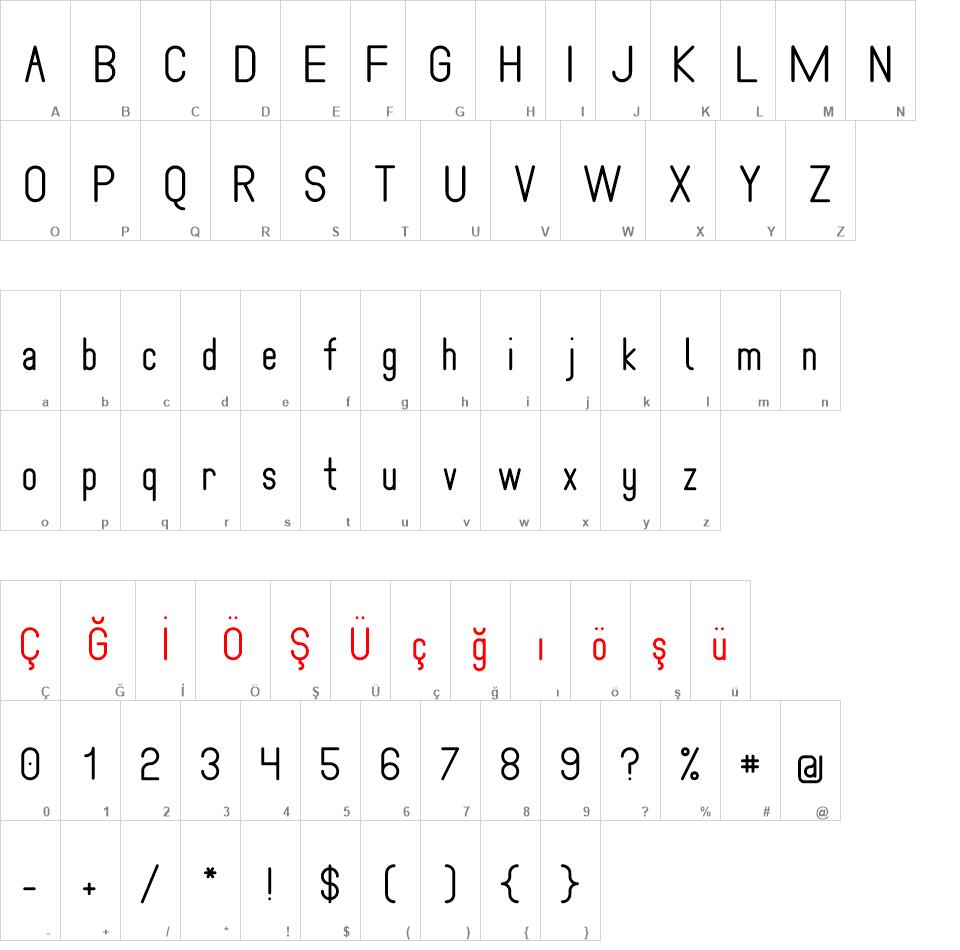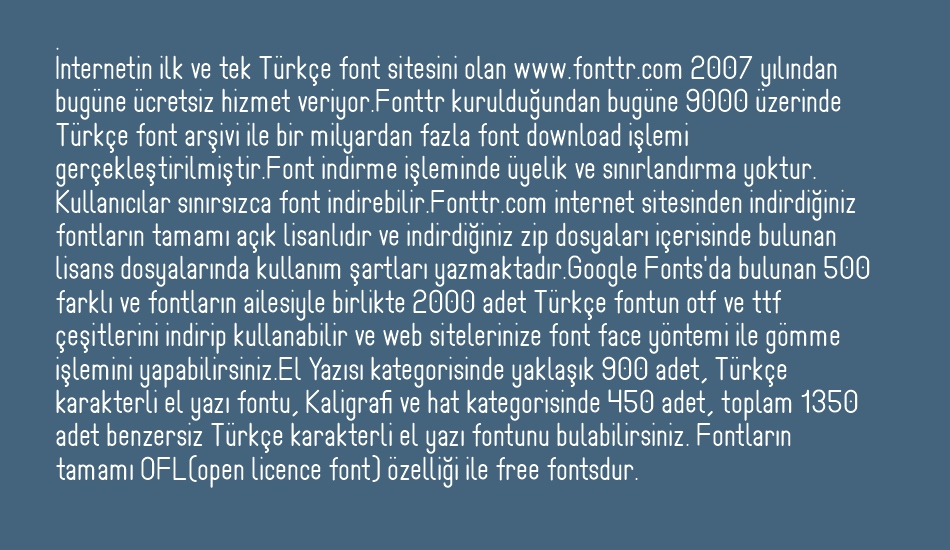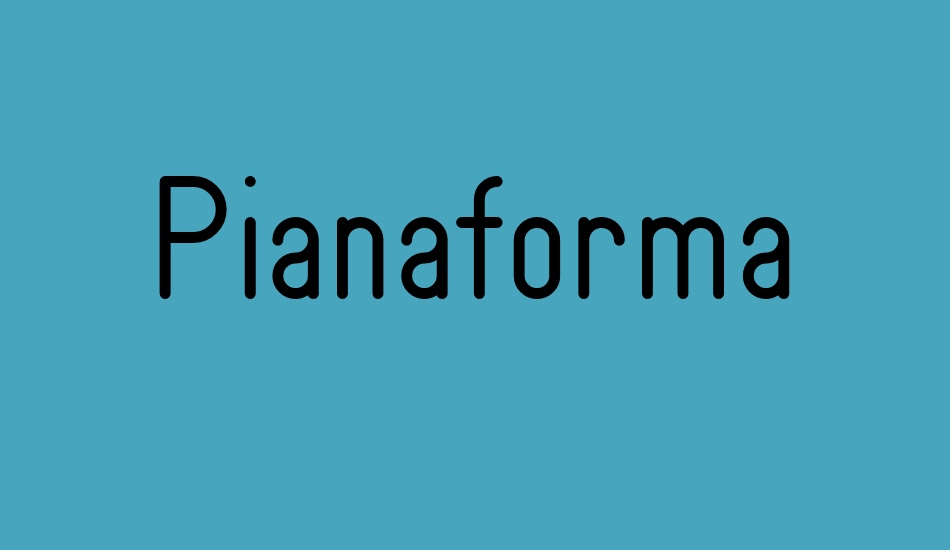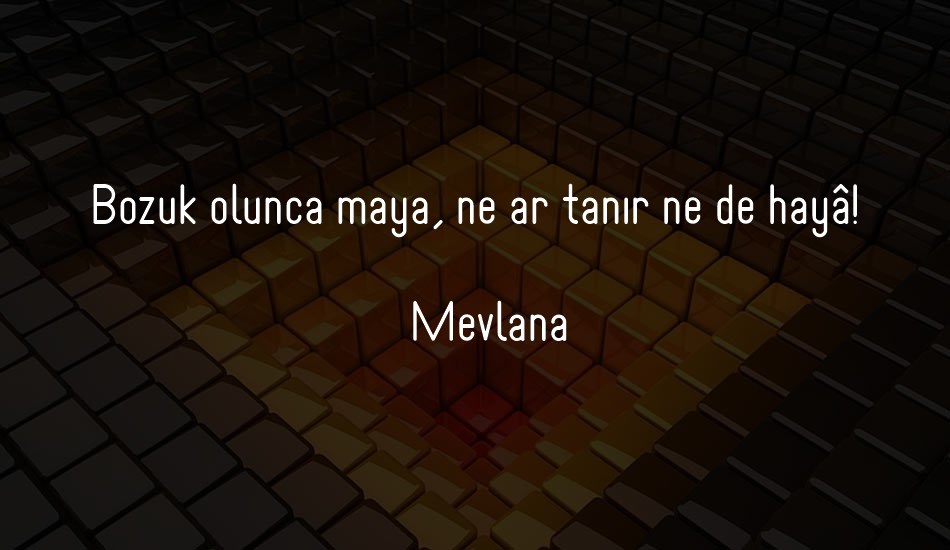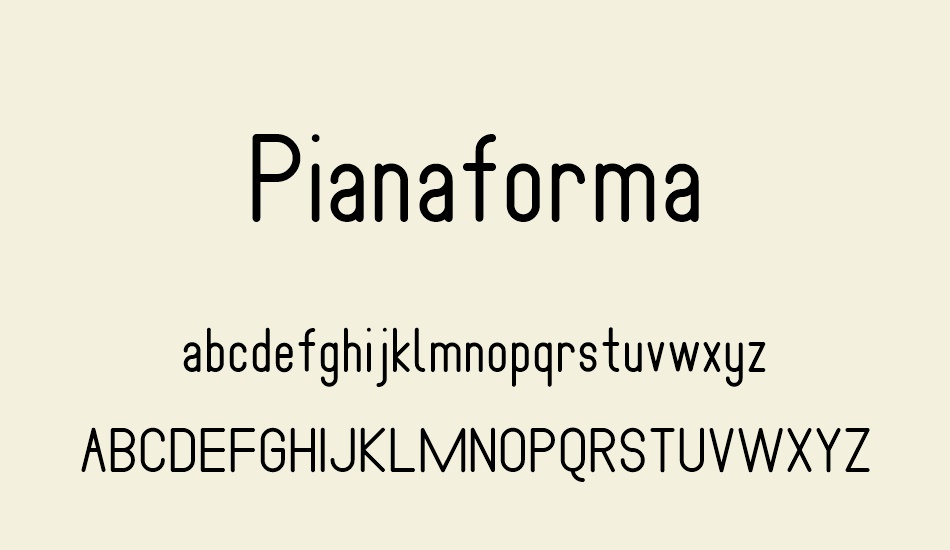
Pianaforma font
Pianaforma
Pianaforma is a font build by a very little number of very simple rational rules applied sistematically.
Its goal is to show a possible representation of the common idea of the alphabet.